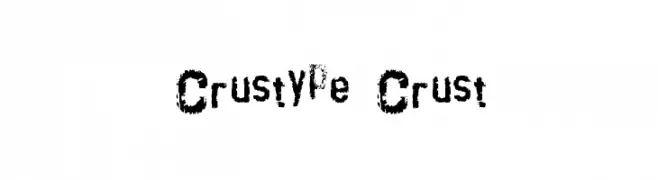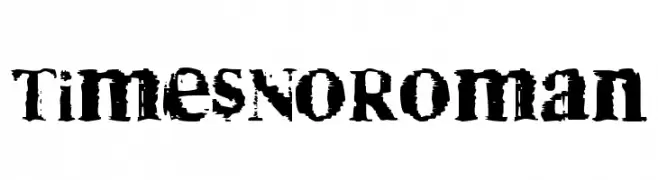
A bold, distressed font with a grunge, post-apocalyptic style.
A bold, cracked font with a distressed and edgy appearance.
A distressed, textured font with a grunge aesthetic.
A bold, textured font with a rugged, distressed appearance.
A rugged, distressed font with a bold, weathered appearance.
A rugged, distressed font with a charred, gritty appearance.